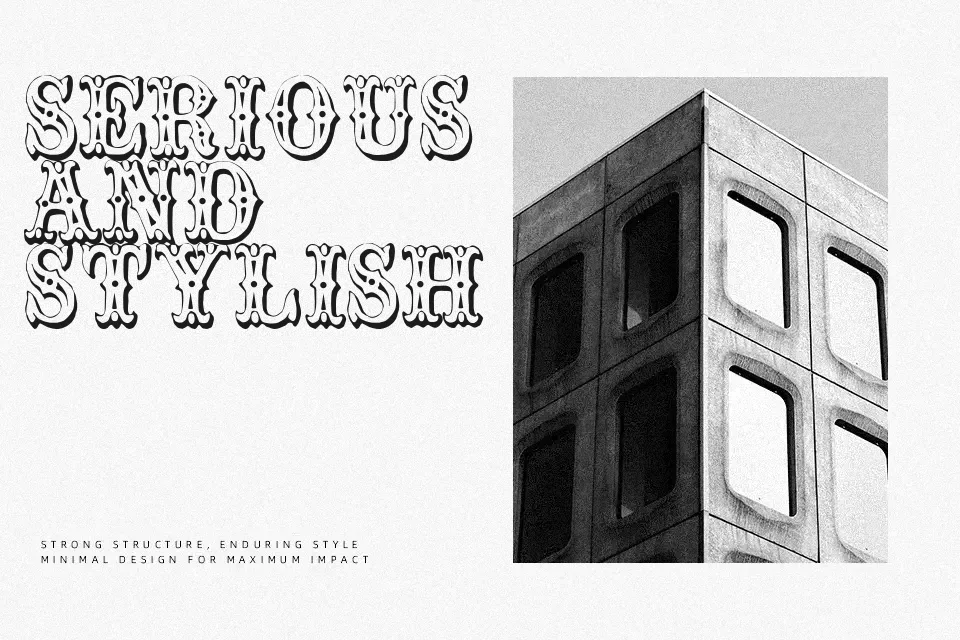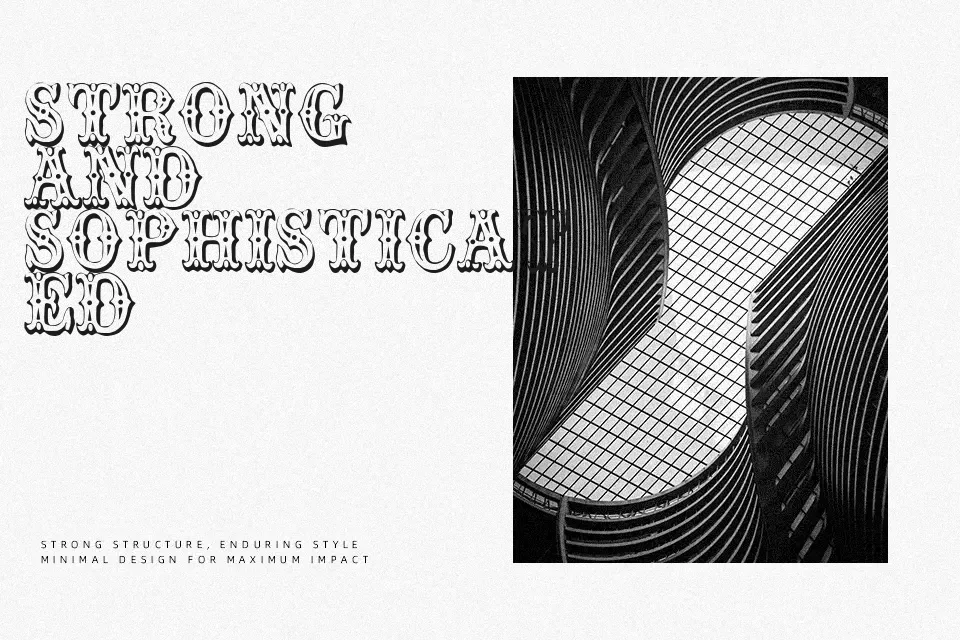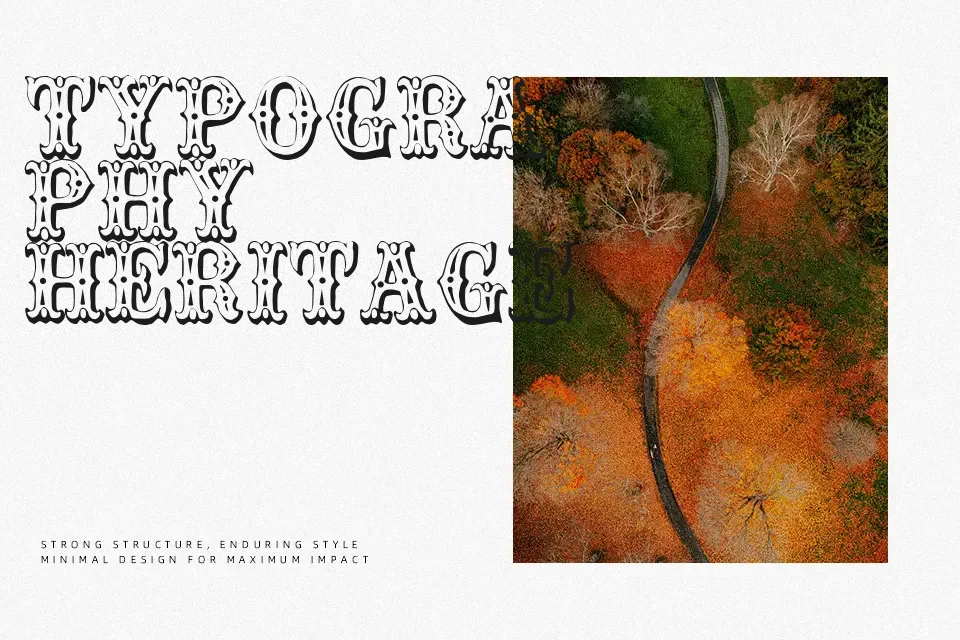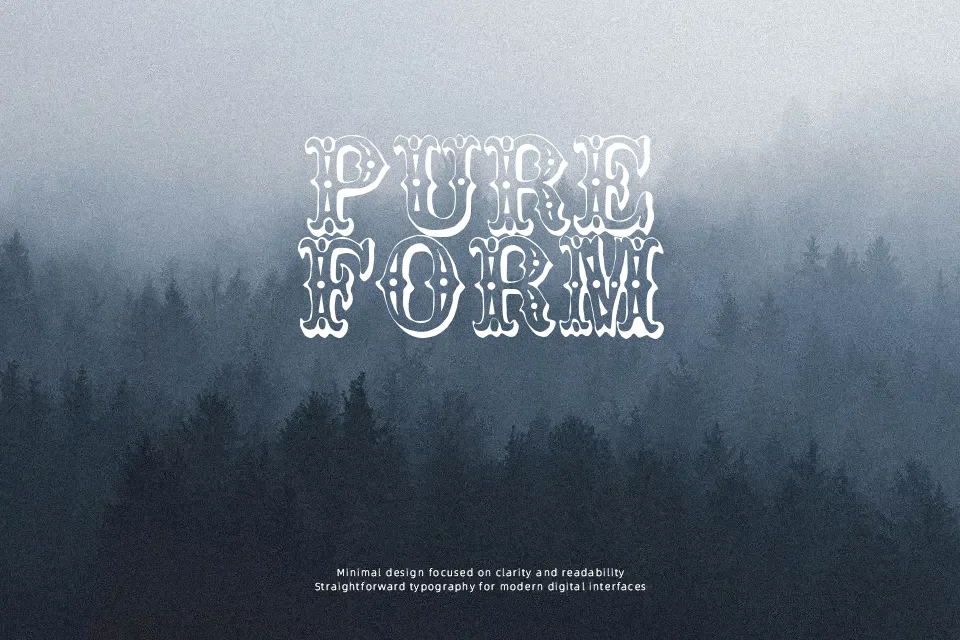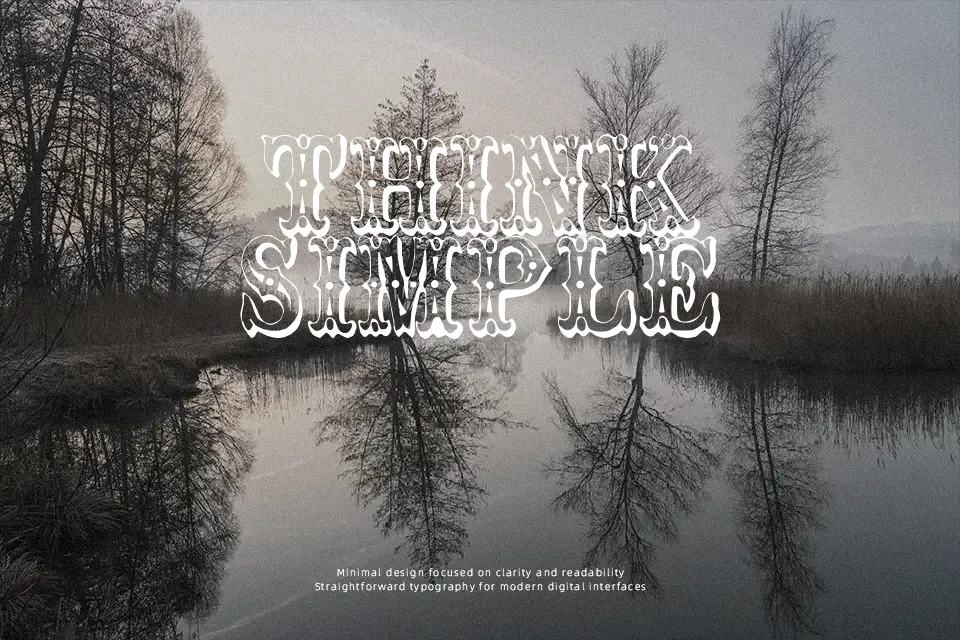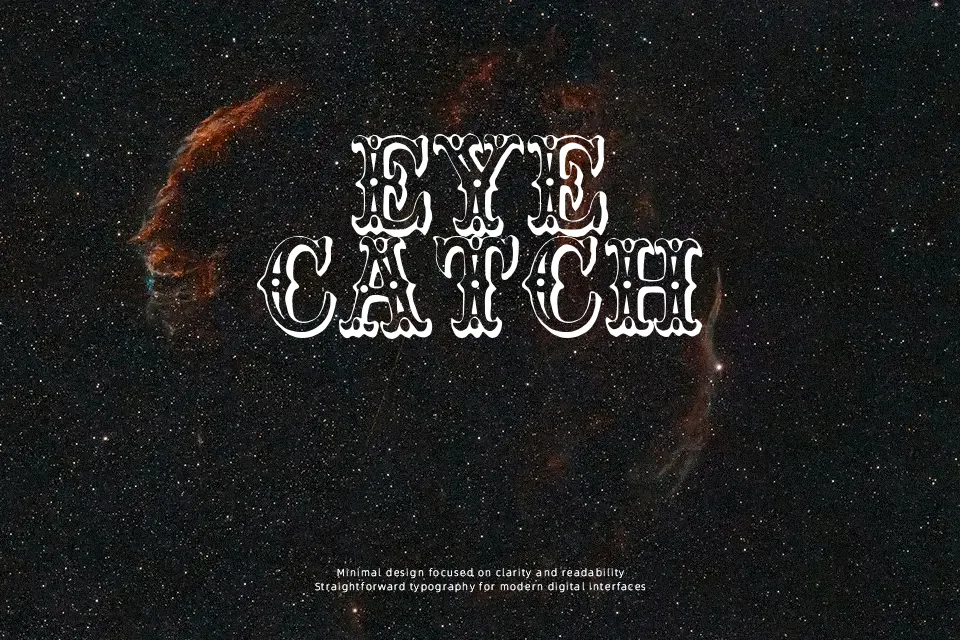
Trocadero Font
Designed by Dieter Steffmann
Trocadero Font exhibits robust display proportions accented by prominent bilateral spurs, thick bracketed serifs, and deep cast shadows that generate an unmistakable three-dimensional illusion. Each glyph features thick primary strokes counterbalanced by narrow decorative cutouts, producing strong internal contrast across uppercase forms. Generous horizontal metrics and wide character spacing prevent the shaded extrusions from colliding, though this structural density significantly impairs readability in continuous body text. The letterforms remain remarkably legible when projected at substantial display scales on rustic signage or theatrical billboards. However, intricate dimensional details collapse rapidly at smaller sizes, making the typeface ineffective for dense editorial settings.
vintage poster headlines, craft brewery packaging, western saloon signage, carnival banners
long paragraph body text, mobile interface labels, dense editorial layouts, small legal disclaimers
Perfect for 3d, headline, and logo, with a bold and decorative style.